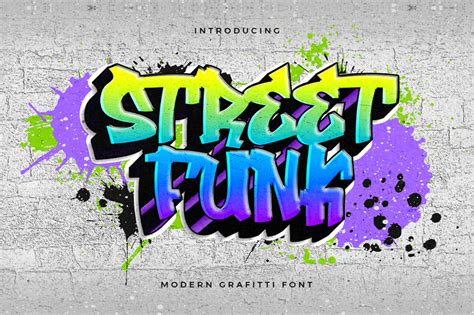
Graffiti Fonts: Explore Dafont's Creative Styles
Hey guys! Ever scrolled through cool urban art online or seen some killer designs and wondered, “Where can I get fonts like that?” Well, you’re in luck because today we’re diving deep into the awesome world of graffiti fonts , with a special shout-out to the massive library over at Dafont. If you’re looking to inject some street art vibe into your projects, whether it’s a flyer, a t-shirt design, a social media post, or even your personal blog, finding the right graffiti font can make all the difference. Dafont is a goldmine for this stuff, offering a huge variety of styles that mimic everything from classic spray-can tags to more intricate, hand-painted lettering. We’re talking fonts that scream attitude, creativity, and raw energy. So, grab your digital spray cans, and let’s get this art party started!
Discovering the Graffiti Vibe on Dafont
When you first land on Dafont, it might seem a bit overwhelming with its sheer volume of typefaces. But trust me, once you know what you’re looking for, it’s easy to navigate. Graffiti fonts are typically categorized under various sections, but often you’ll find them mixed in with “script,” “decorative,” or even “urban” styles if such a category existed. The beauty of Dafont is its user-friendly interface, allowing you to preview fonts with your own text. This means you can type in your name, a catchy phrase, or your project title and see exactly how it looks in hundreds of different graffiti-inspired styles. This feature is a lifesaver, guys, saving you tons of time and guesswork. You can literally type “Graffiti World” and see how it appears in a chunky, dripping font, a sharp, angular style, or a bubbly, cartoonish tag. The site also offers filters, so you can sort by popularity, newest additions, or even by the designer if you find an artist whose style you particularly dig. Remember, the term “graffiti font” is pretty broad. It encompasses a whole spectrum of styles born from street art culture. You’ve got your old-school throw-ups, which are usually quick, bubbly, and bold. Then there are the more complex, elaborate pieces with shading, outlines, and wild extensions. And let’s not forget the stencil fonts, which mimic the look of spray paint through a mask. Dafont has it all, guys! Whether you’re aiming for a gritty, underground feel or something a bit more polished and commercial, you’ll find fonts that fit the bill. It’s all about exploring and experimenting until you find that perfect match that speaks to your creative vision. So, take your time, click around, and let the fonts inspire you. Who knows what masterpieces you’ll create!
Types of Graffiti Fonts You’ll Find
Alright, let’s break down the cool kinds of graffiti fonts you can snag from Dafont. It’s not just one look, oh no. It’s a whole universe of styles, each with its own personality and vibe. First up, we have the “Tag” or “Wildstyle” fonts . These are the OG’s, mimicking those rapid, often illegible, spray-painted signatures that are the bedrock of graffiti culture. Think quick strokes, overlapping letters, and a sense of urgency. They’re perfect if you want that authentic, raw, in-the-moment feel. Then there are the “Bubble” or “Throw-up” fonts . These are typically rounder, softer, and often have a bubbly, inflated look, making them super friendly and eye-catching. They’re great for more playful designs or when you need something bold but less aggressive than wildstyle. Moving on, we’ve got the “Stencil” fonts . These fonts are designed to look like they’ve been sprayed through a stencil. You’ll often see sharp edges and sometimes broken lines or gaps where the stencil material would be. They give off a strong, often political or militaristic vibe, but can also be used for a cool, edgy aesthetic. “Brush Script” or “Marker” fonts are another popular category. These mimic the look of writing with a brush or a thick marker, often featuring varying stroke widths and a dynamic, fluid appearance. They can range from elegant and calligraphic to bold and energetic, depending on the specific design. Finally, you’ll find a bunch of “Decorative” or “Experimental” graffiti fonts . These are where designers really let loose. They might incorporate elements like drips, splatters, 3D effects, or abstract shapes, pushing the boundaries of what a letterform can be. These are fantastic for making a strong visual statement and grabbing immediate attention. When you’re browsing Dafont, keep an eye out for descriptions. Designers often label their fonts, giving you clues about the intended style and use. For example, a font might be described as “inspired by 90s graffiti” or “perfect for urban posters.” This info is gold, guys, helping you zero in on the exact aesthetic you’re after. Don’t be afraid to mix and match styles, either. A bold bubble font for a headline paired with a cleaner stencil font for body text can create a really dynamic and professional look. The possibilities are endless, and Dafont is your playground to explore them all!## How to Use Graffiti Fonts Effectively
Now that you know where to find awesome graffiti fonts and what kinds are out there, let’s talk about how to use them like a pro, guys! Just slapping a graffiti font onto any old design isn’t always the magic bullet. You gotta think about the context, the message, and how it all fits together. First rule of thumb: readability . Some graffiti fonts, especially the wildstyle ones, are super artistic but can be a nightmare to read if used for large blocks of text. These are best reserved for headlines, logos, or short, punchy phrases where the impact is more visual than informational. For longer text, opt for graffiti-inspired fonts that are cleaner and more legible, perhaps those that lean towards a marker or stencil style. Think about the vibe you’re going for. Are you aiming for a gritty, underground street art feel? Then maybe a classic tag font or a dripping style would be perfect. If your project is more modern, urban, and edgy, a sharp, angular font or a sleek stencil design might be the way to go. And for something fun and playful, those bubbly fonts are your best bet. Contrast is key , my friends! Pair your eye-catching graffiti font with a simpler, more neutral font for supporting text. This creates a visual hierarchy and ensures that your main message stands out without overwhelming the viewer. For example, use a bold, artistic graffiti font for your event title and a clean sans-serif font for the date, time, and location. This balance makes your design look professional and considered. Consider the medium . A font that looks killer on a small Instagram graphic might get lost on a large banner. Conversely, a very detailed font might be too busy for tiny print. Always preview your font choice at the actual size it will be used. Another great tip is to customize . Many graffiti fonts come with a range of alternate characters or ligatures. Play around with these! Sometimes, a slight tweak to a letter or combining two characters can make your text truly unique. You can also manually adjust spacing (kerning) to make your words flow better. Don’t underestimate the power of color! Graffiti is all about vibrant colors, so don’t be afraid to experiment. Use bold color contrasts or gradients that echo the spray-paint aesthetic. Think about adding subtle textures, like a light grunge or spray splatter effect, to further enhance the graffiti feel. Remember, guys, the goal is to use these fonts to enhance your message, not overpower it. They’re a powerful tool for adding personality and visual interest, so use them wisely and creatively. Explore, experiment, and have fun with it – that’s the spirit of graffiti, after all!## Finding Specific Styles on Dafont
Navigating Dafont to find that exact graffiti font you have in mind can feel like a treasure hunt, but it’s totally doable, guys! Dafont organizes its massive collection pretty well, but since “graffiti” isn’t a single, strict category, you’ll need to employ a few smart strategies. Your best bet is to start with the “Script” and “Decorative” categories. Within “Script,” you’ll find a ton of fonts that mimic handwriting, and many of these are designed with a graffiti or street art influence – think quick strokes, bold lines, and expressive forms. The “Decorative” section is even broader and is often where you’ll find the more stylized, unique, and sometimes experimental graffiti fonts that don’t fit neatly into other categories. Look for fonts with names that hint at the style, like “Urban Decay,” “Street Art,” “Tag Master,” “Spray Paint,” or anything that sounds dynamic and edgy. Another useful approach is to use the search bar effectively. Instead of just typing “graffiti,” try more specific terms. If you like the look of spray paint drips, search for “drip font.” If you’re after a bubbly style, try “bubble font” or “cartoon font.” For those sharp, angular looks often seen in tags, search for “stencil font” or even “sharp font.” Sometimes, searching for related terms like “urban,” “hip hop,” “skate,” or even “tattoo” fonts can lead you to hidden gems that have a similar aesthetic. Check the “Newest” section regularly. Designers are constantly uploading new creations, and you might stumble upon the perfect, fresh graffiti font before anyone else does. Also, don’t overlook the “Popular” section. Fonts that are frequently downloaded often represent popular styles, and you might find a well-loved graffiti font there. Once you find a font you like, pay attention to the author’s other works. Many designers have a signature style, and if you dig one of their graffiti fonts, chances are they have others you’ll love too. Click on the author’s name to see their full collection! And importantly, always check the license . While many fonts on Dafont are free for personal use, commercial use often requires a license. Read the details carefully to avoid any legal hiccups, guys. So, get clicking, experiment with search terms, and dive into those categories. With a little patience and these tips, you’ll be unlocking Dafont’s graffiti font vault in no time and finding exactly what you need to make your designs pop!## Beyond Dafont: Expanding Your Font Horizon